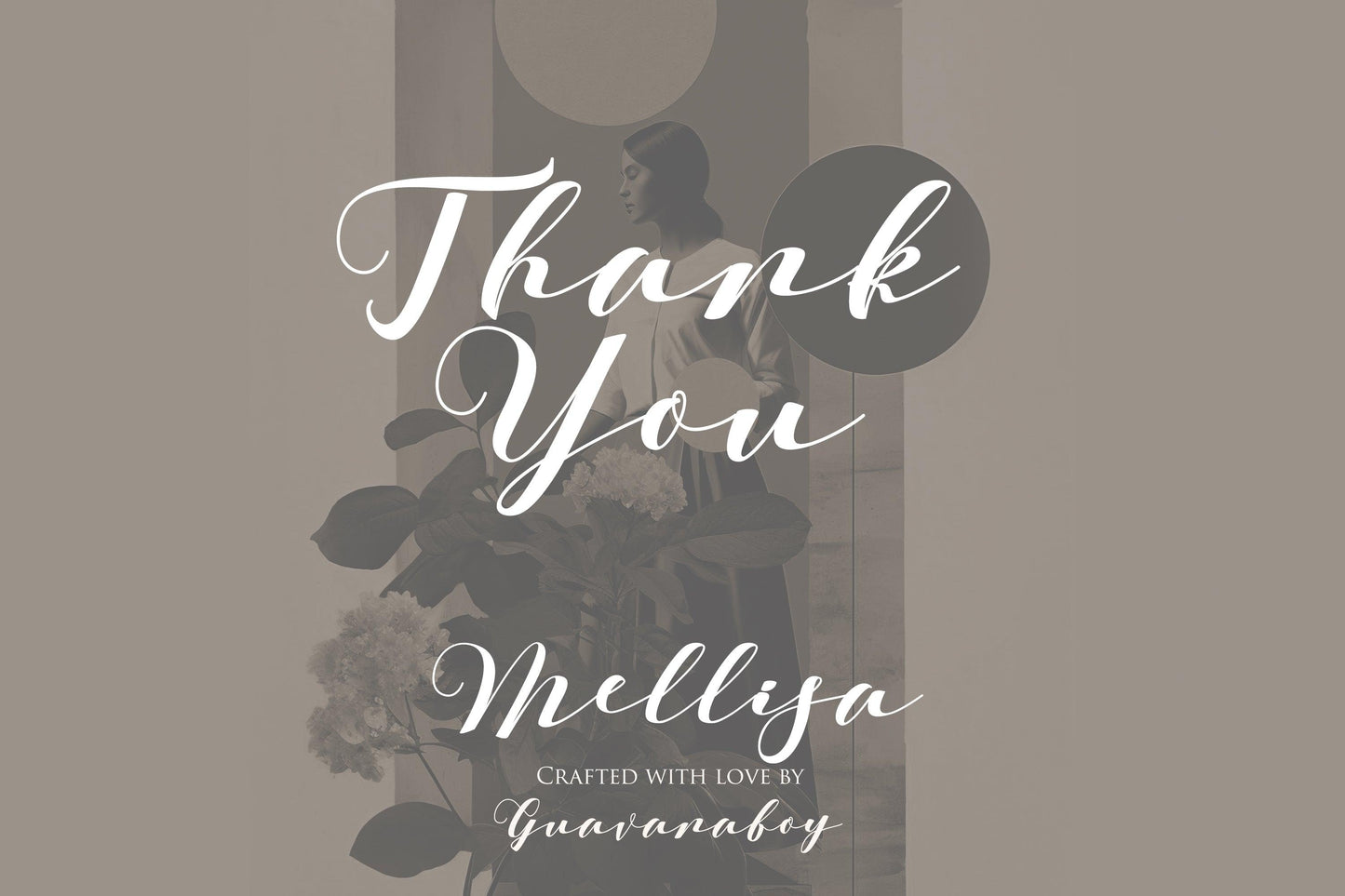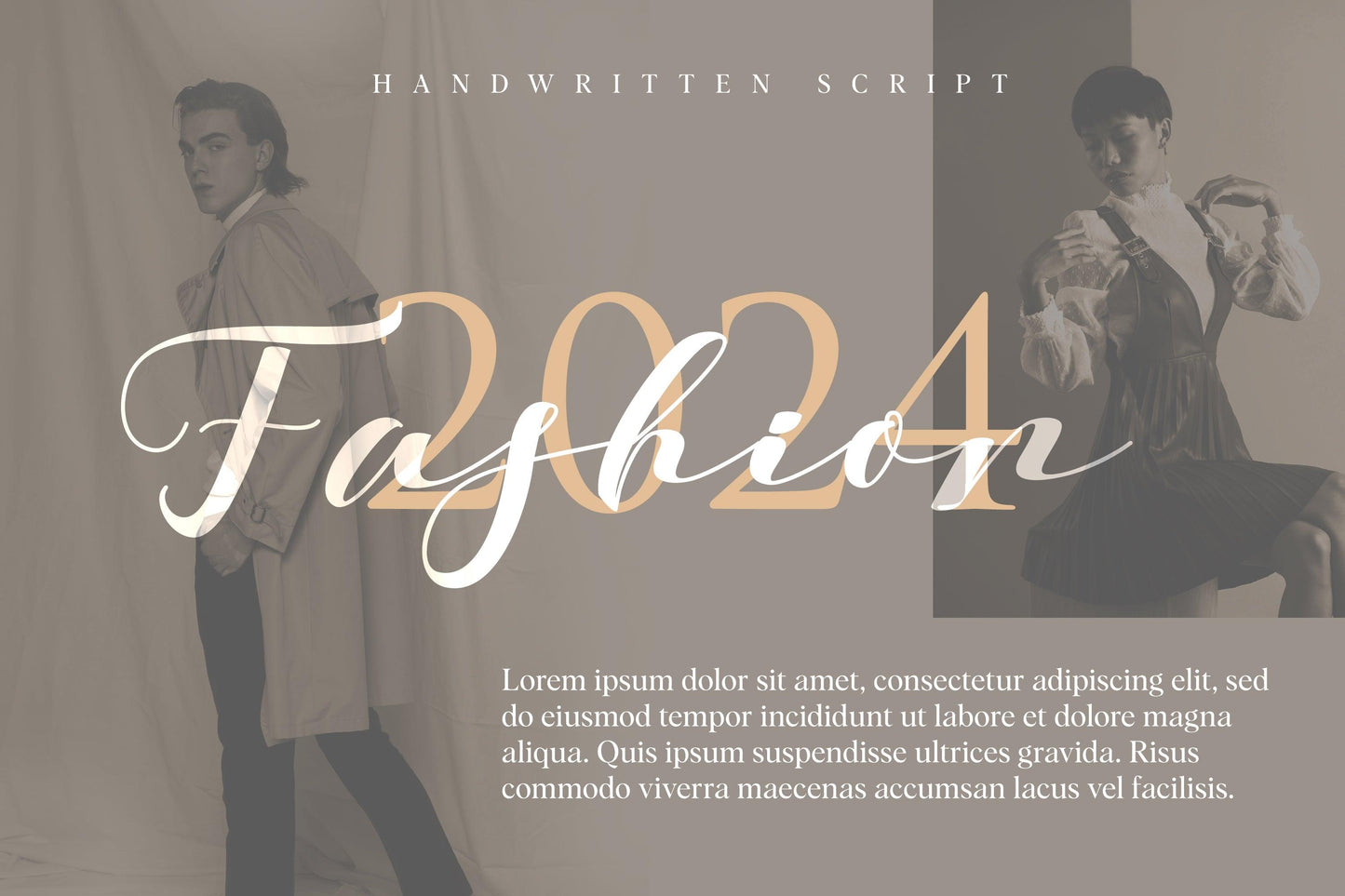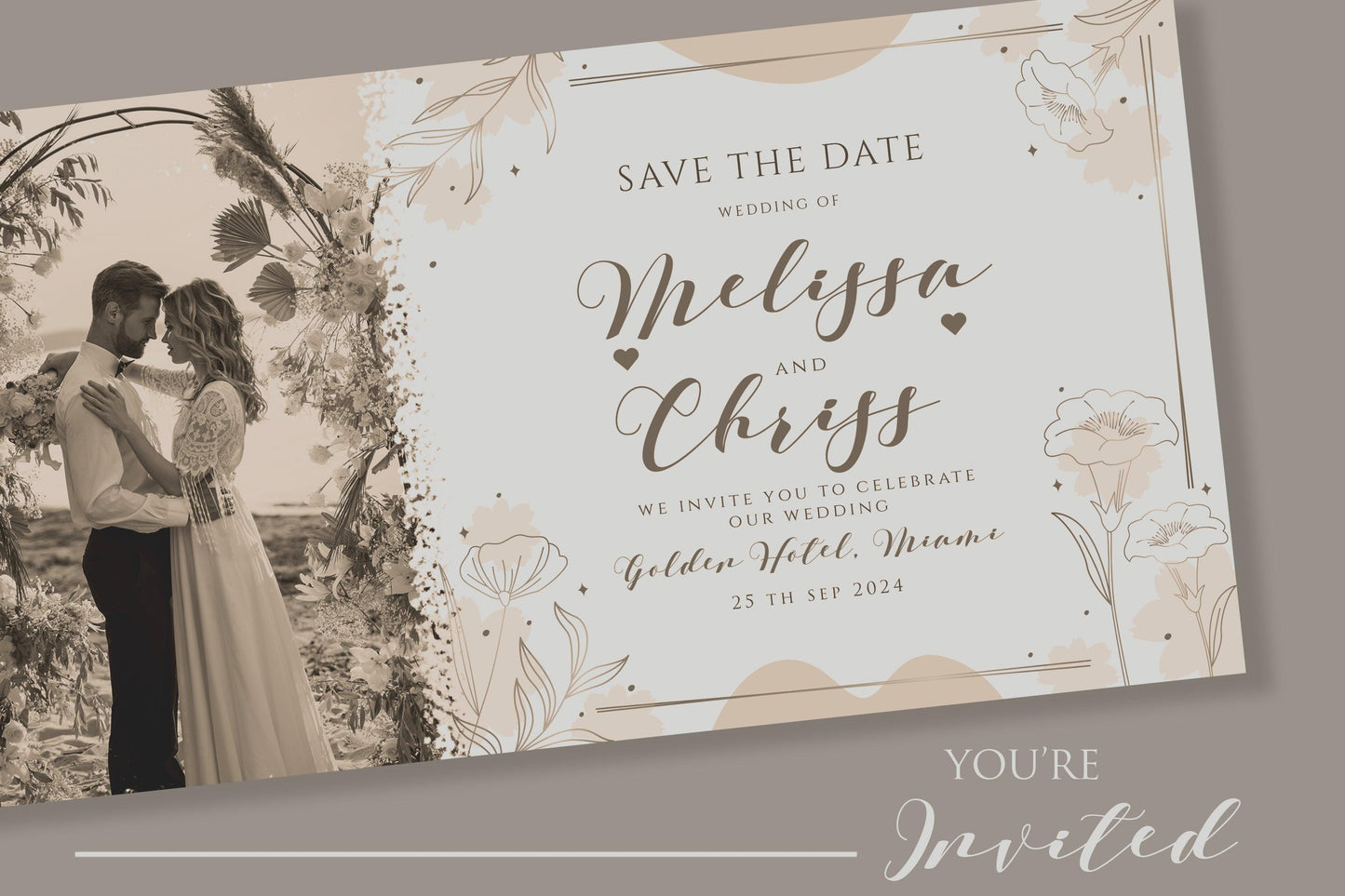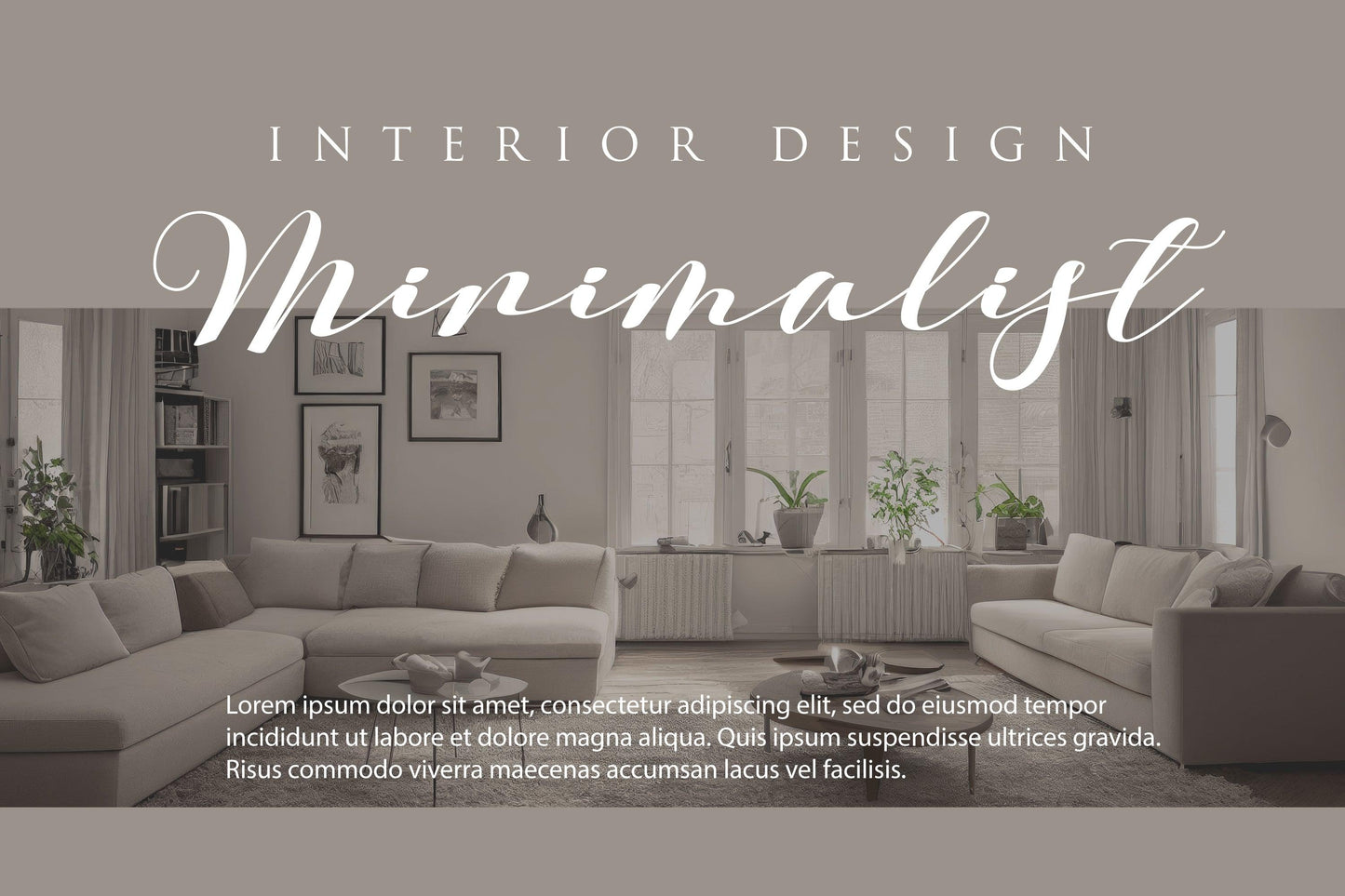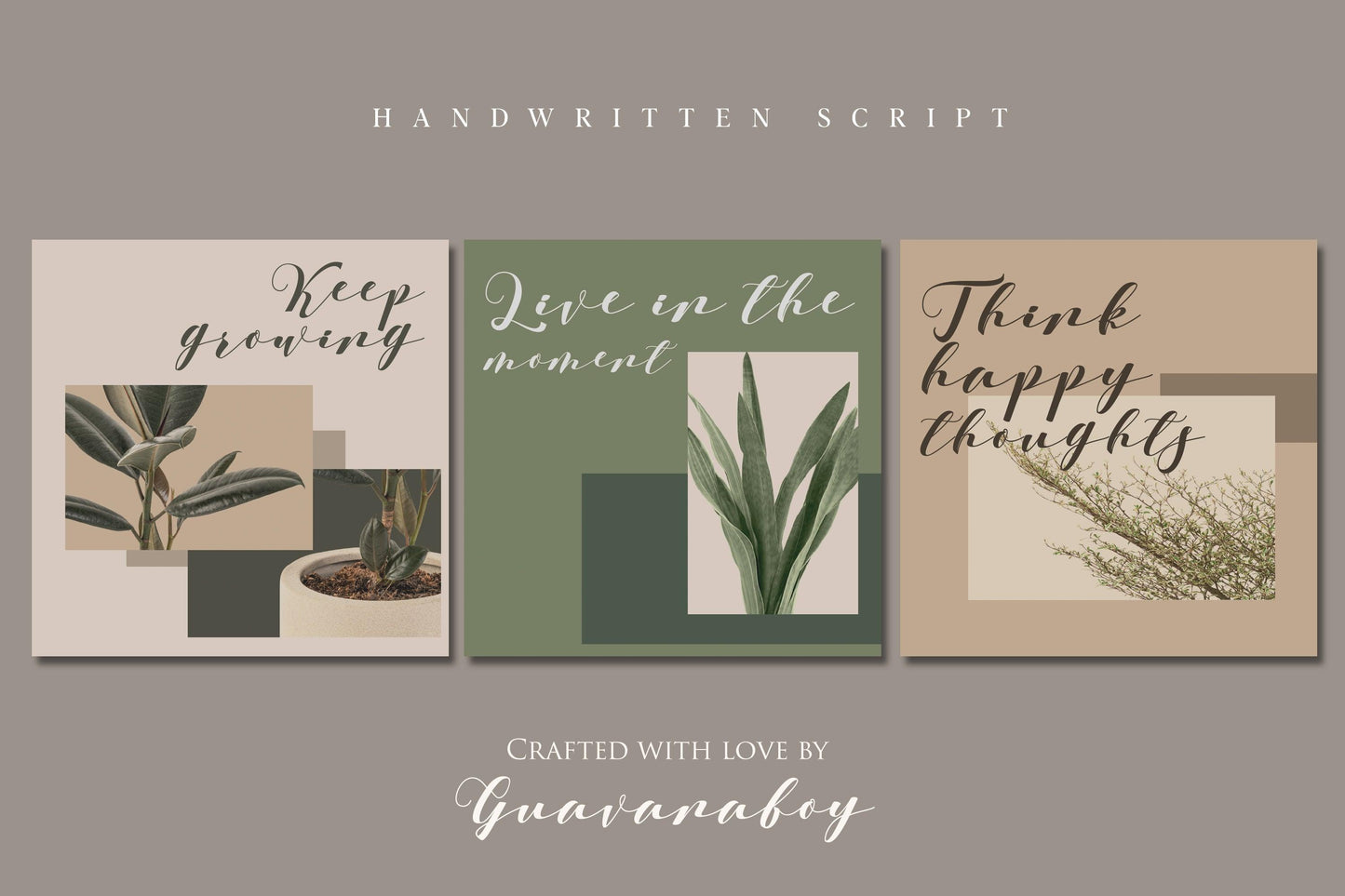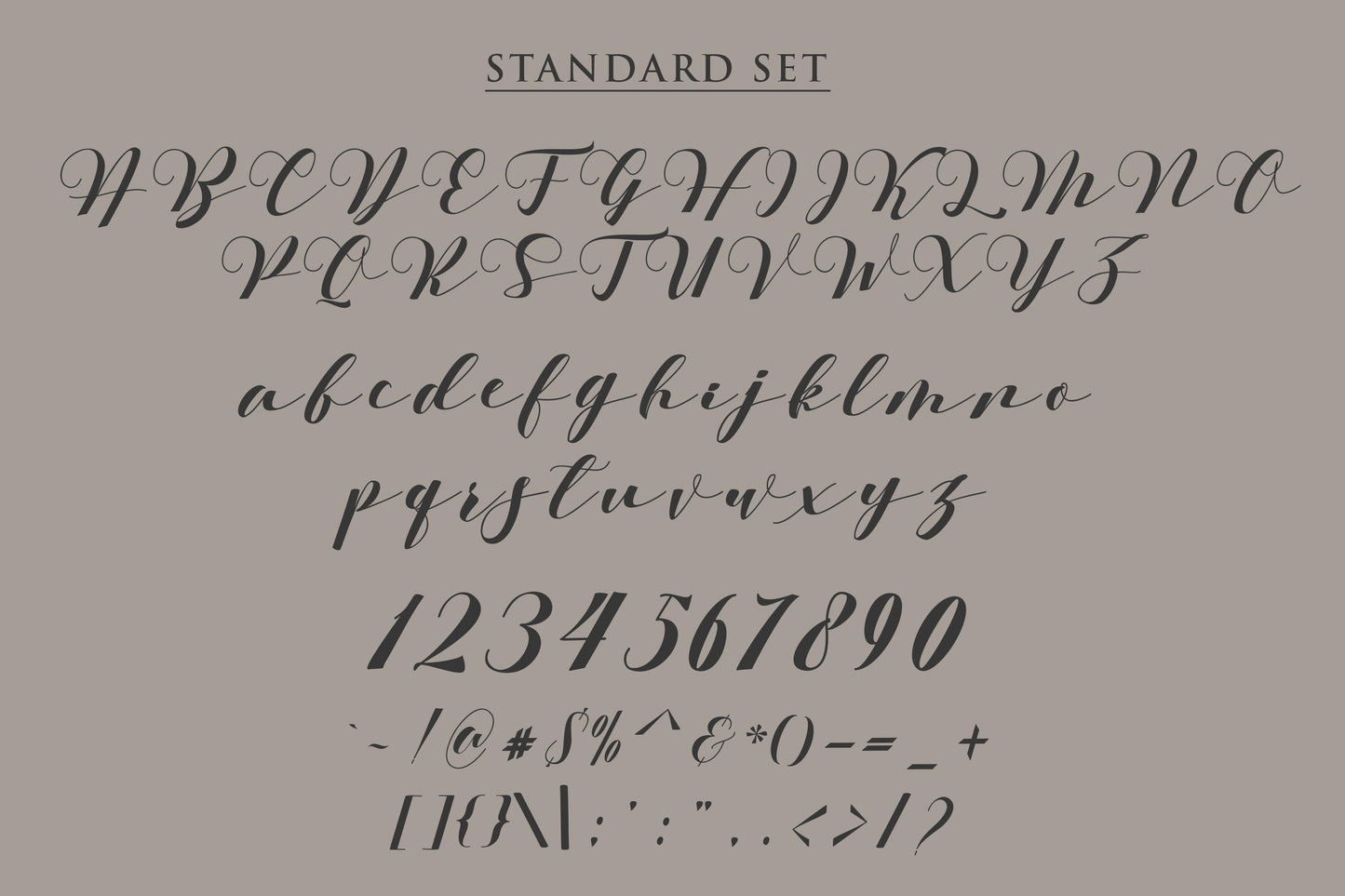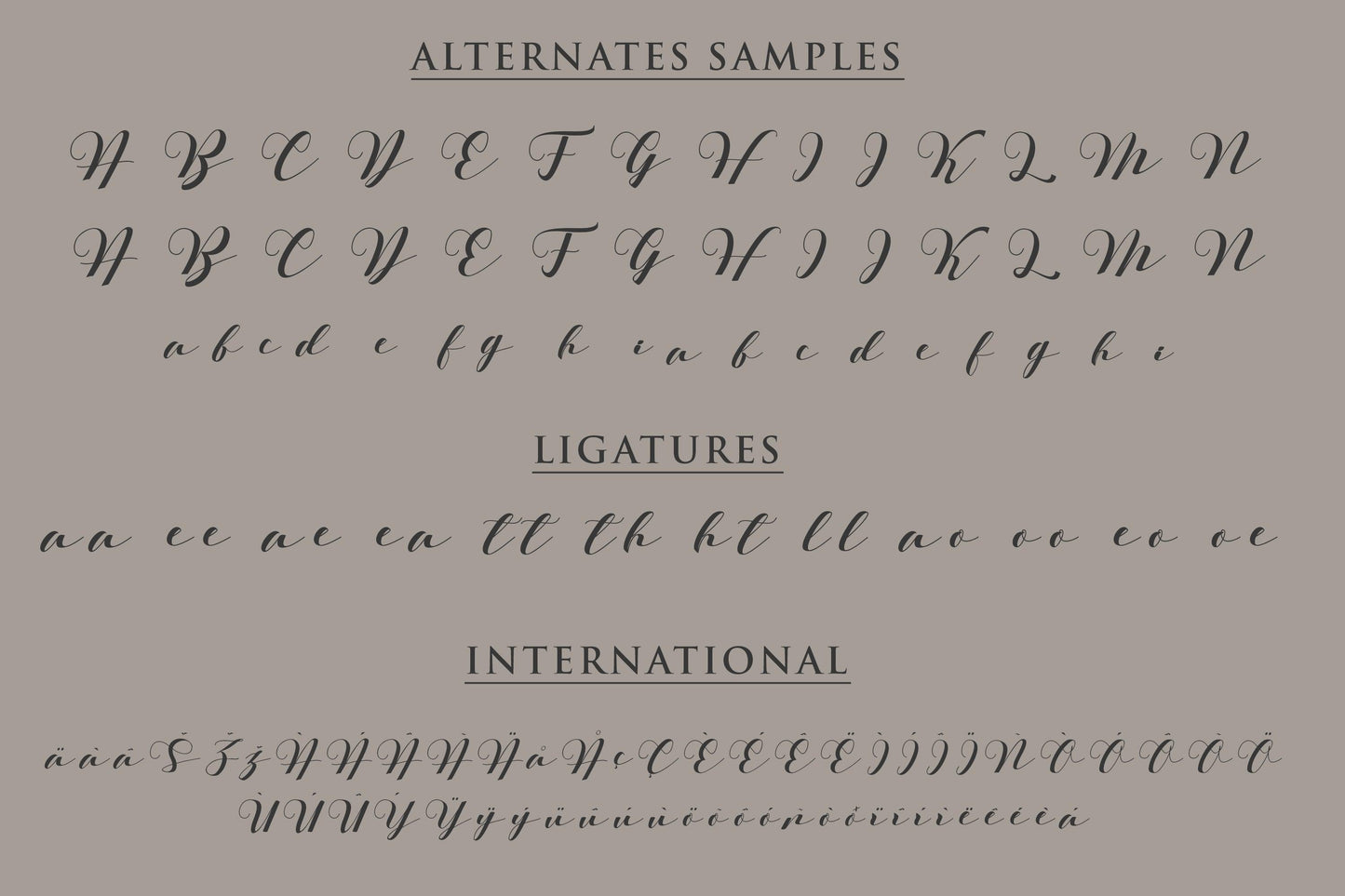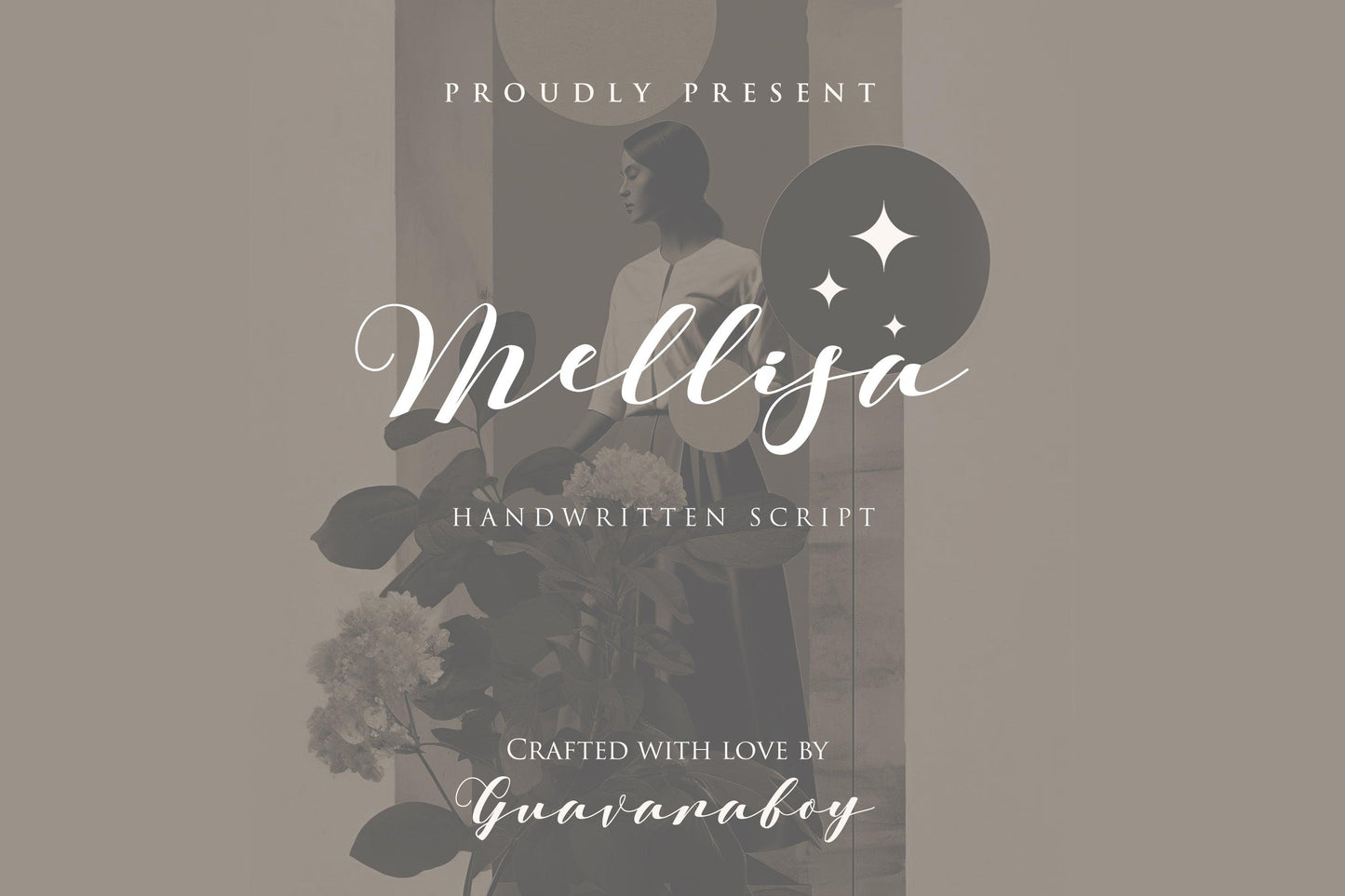
Melissa - Elegant Handwritten Font
Introduce sophistication and charm to your designs with Melissa, an Elegant Handwritten Font crafted to add a personal, artistic touch. With its smooth, flowing strokes and graceful curves, Melissa is perfect for wedding invitations, branding, social media graphics, product packaging, and more. Whether you’re working on romantic projects or professional branding, this font delivers timeless elegance with a modern twist.
- Complete Character Set: Includes uppercase, lowercase, numbers, punctuation, and multilingual support.